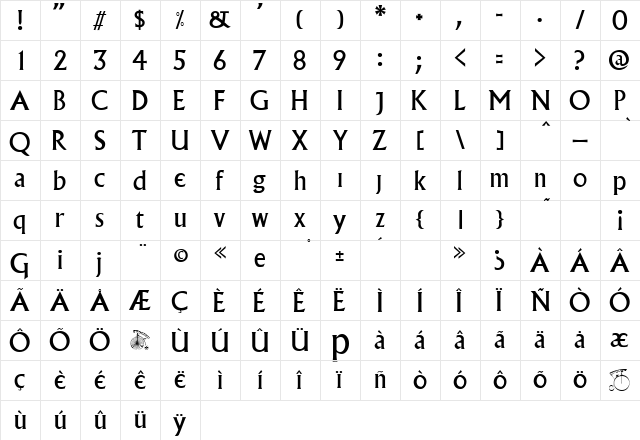
Village Plain Font Preview
Village Plain
Design Context for Village Typeface
Village takes a measured approach to typography — its balanced proportions and neutral character make it a reliable workhorse for both digital and print work.
Pro Tip: Pair Village with a font of contrasting weight or personality to build a more expressive typographic hierarchy.